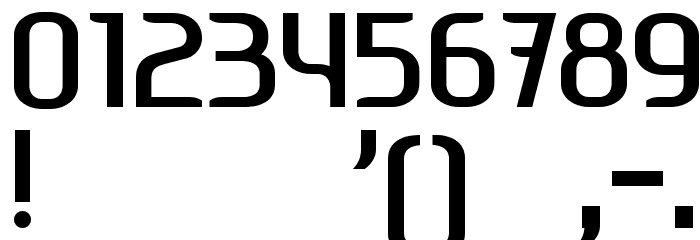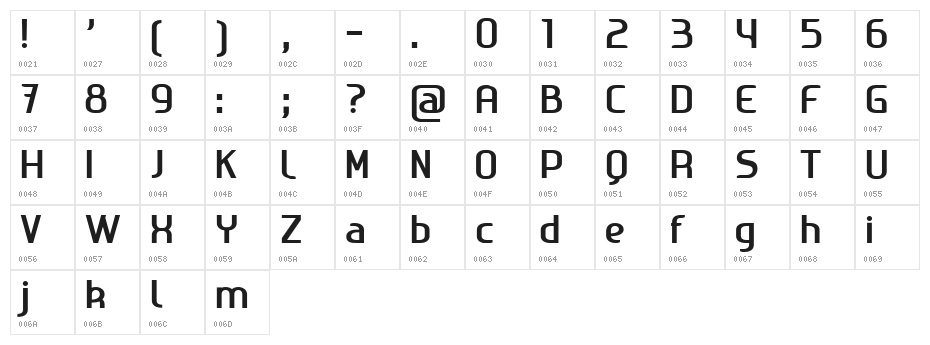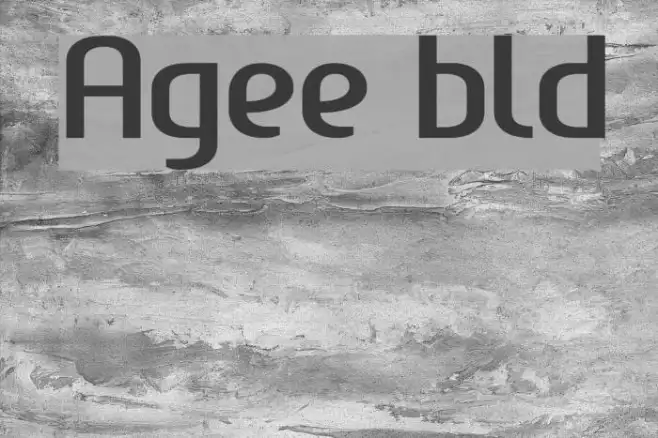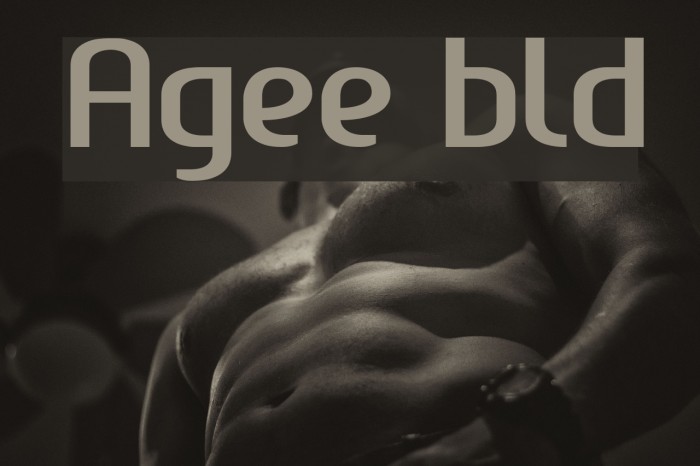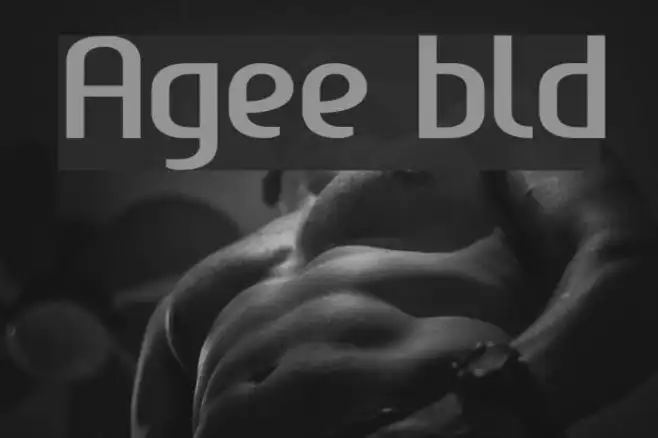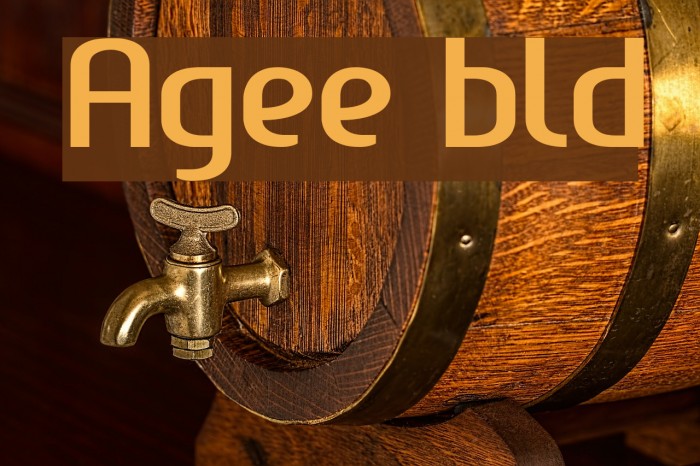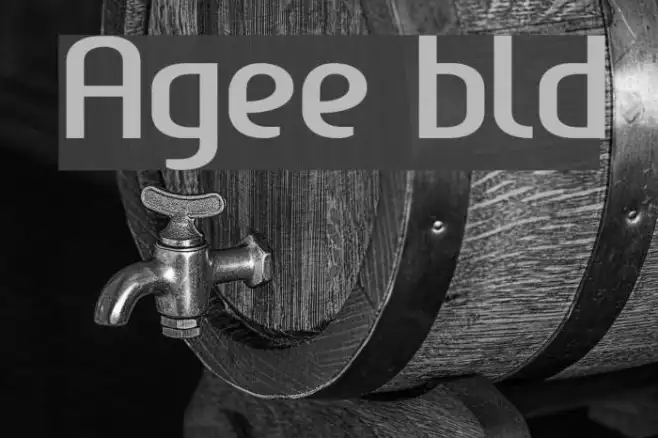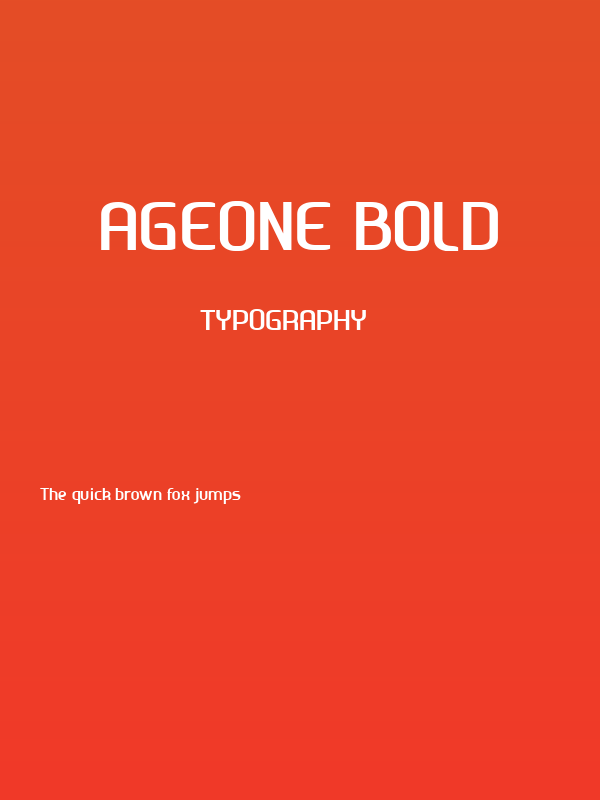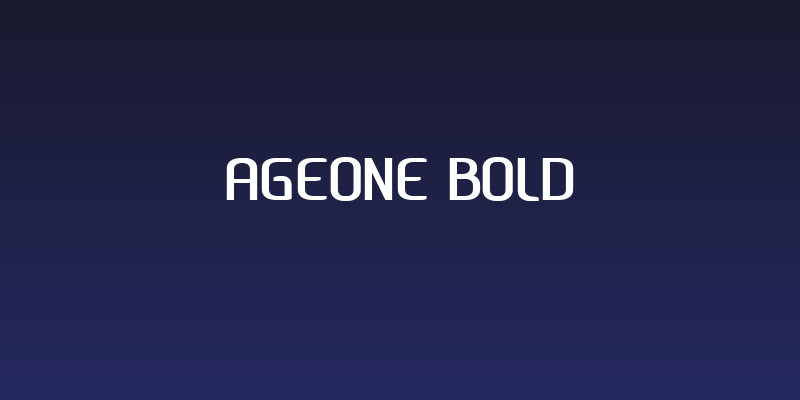
Ageone bold Font
Ageone bold Description
This font features a modern, geometric design with a bold presence. The characters are constructed with clean lines and rounded edges, giving it a sleek and contemporary look. The uppercase and lowercase letters maintain a consistent height, contributing to a uniform appearance. The numerals are distinct and easy to read, while the special characters blend seamlessly with the overall style. This font's structure is well-suited for digital displays and print media, offering versatility across various applications.
| Proposed Projects | Ideal for branding, digital interfaces, advertising, and editorial design. |